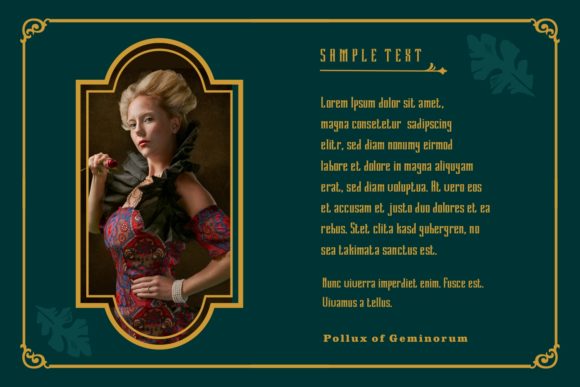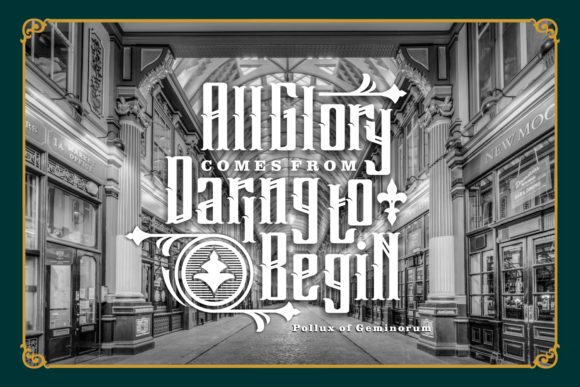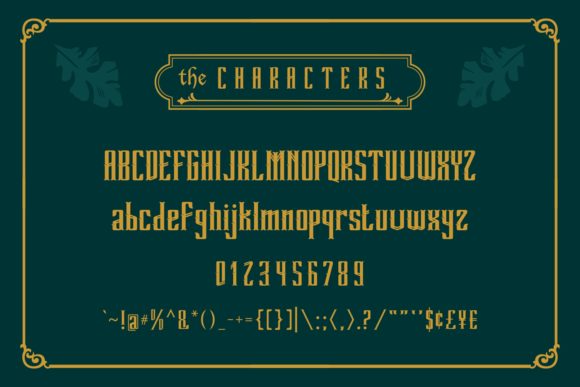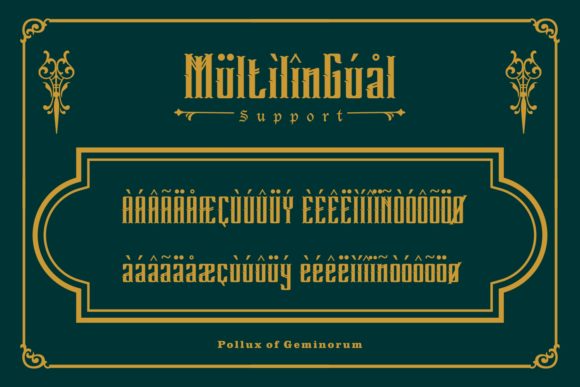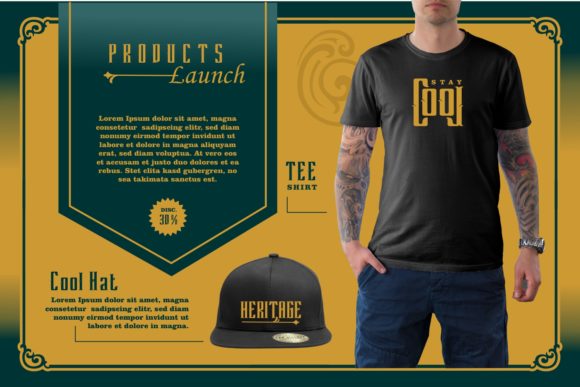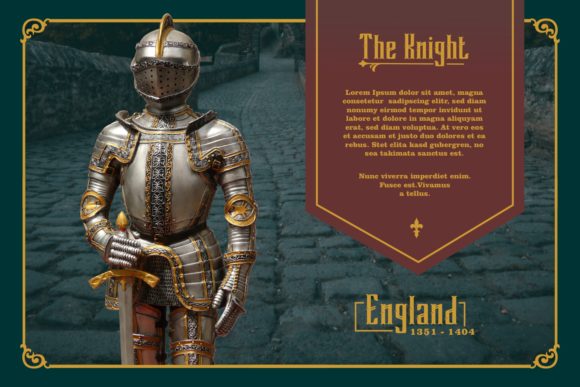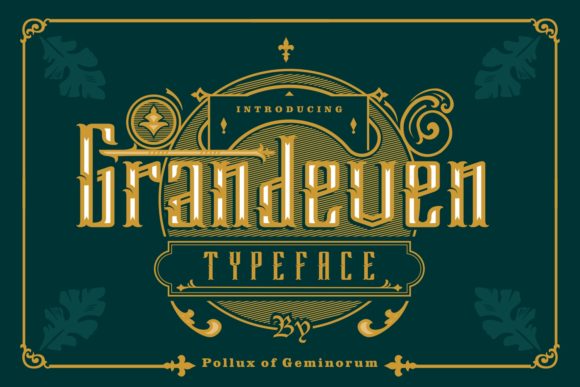
Introducing Grandeven Font: Elevate Your Designs with Style
Are you tired of using the same old fonts in your designs? Look no further than Grandeven Font, a visually attractive typeface that’s sure to take your creations to the next level. With its unique blend of style and versatility, Grandeven Font is perfect for designers and crafters looking to add a touch of elegance to their work.
What Makes Grandeven Font So Special?
Grandeven Font is a game-changer when it comes to typography. Its distinctive design allows you to mix and match letters, creating a truly one-of-a-kind look that’s sure to turn heads. But that’s not all – this font also comes with borders that can be combined with the letters to add an extra layer of style to your designs.
Endless Possibilities with Grandeven Font
One of the best things about Grandeven Font is its incredible versatility. Whether you’re looking to create a stunning logo, a beautiful invitation, or a bold poster, this font is up to the task. Here are just a few ideas to get you started:
- Headings: Use Grandeven Font to create eye-catching headings that draw attention to your message.
- Logos: Create a memorable brand identity with a custom logo designed using Grandeven Font.
- Invitations: Make your invitations stand out with a beautiful, stylish font that’s sure to impress.
- T-shirt designs: Add a touch of personality to your t-shirt designs with Grandeven Font.
- Greeting cards: Create beautiful, heartfelt greeting cards that will make your loved ones feel special.
- Posters: Use Grandeven Font to create bold, eye-catching posters that grab attention.
- Labels: Add a touch of style to your labels with Grandeven Font.
- Book covers: Create a stunning book cover that will make your book stand out on the shelves.
Why Choose Grandeven Font?
So why should you choose Grandeven Font for your next design project? Here are just a few reasons:
- Unique style: Grandeven Font has a distinctive style that’s sure to set your designs apart from the crowd.
- Versatility: This font can be used for a wide range of design projects, from logos to posters and more.
- Easy to use: Grandeven Font is easy to install and use, even for those who are new to design.
- High-quality: This font is designed with high-quality in mind, ensuring that your designs look professional and polished.
Tips for Using Grandeven Font
Here are a few tips to help you get the most out of Grandeven Font:
- Experiment with different combinations: Don’t be afraid to try out different letter combinations and border styles to create a unique look.
- Play with color: Grandeven Font looks great in a variety of colors, so don’t be afraid to experiment and find the perfect hue for your design.
- Use it sparingly: While Grandeven Font is certainly eye-catching, it can be overwhelming if used too much. Use it sparingly to create a bold, yet balanced design.
Grandeven Font is a versatile and stylish typeface that’s perfect for designers and crafters looking to elevate their designs. With its unique blend of style and versatility, this font is sure to become a go-to in your design arsenal. So why wait? Download Grandeven Font today and start creating stunning designs that will leave a lasting impression.